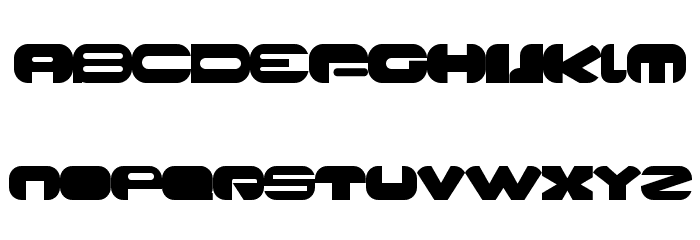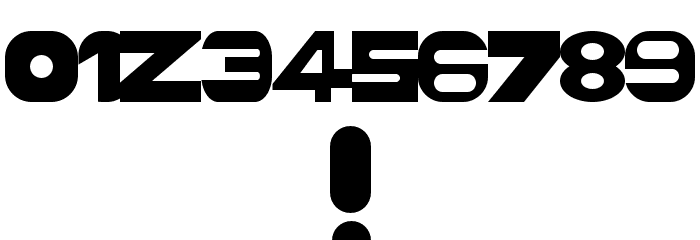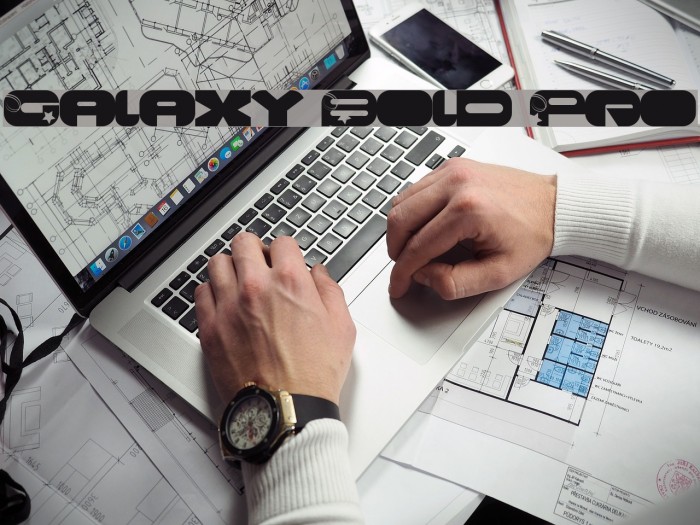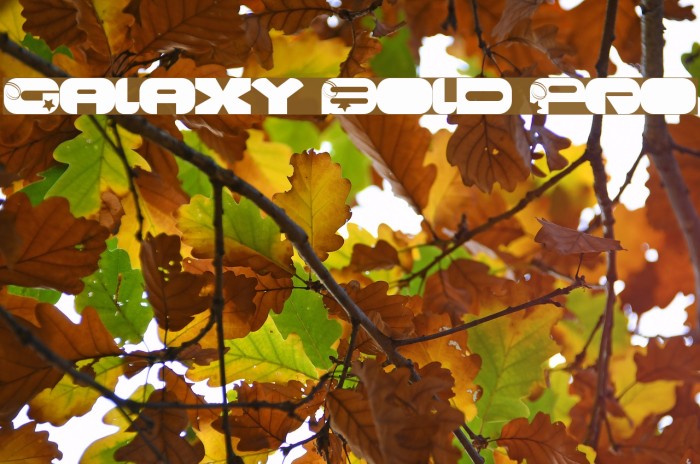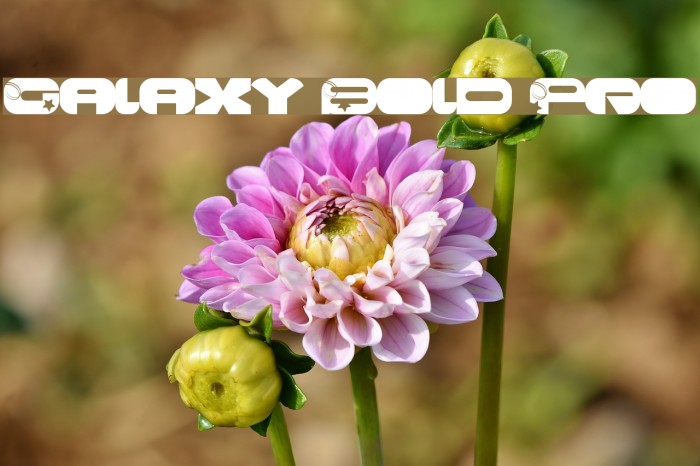
Galaxy Bold Pro Font
This font features a bold, futuristic design with a unique decorative style. The characters are adorned with star and circular motifs, giving it a cosmic and playful appearance. The letters are wide and rounded, with a strong presence that makes them stand out. The font's design is consistent across uppercase and lowercase letters, as well as numbers and special characters, maintaining its distinct style throughout. Its boldness and decorative elements make it ideal for eye-catching designs.
A bold, futuristic font with star and circular motifs, perfect for decorative use.
- Proposed Projects: Ideal for sci-fi themed posters, video game titles, event flyers, and branding that requires a futuristic and playful touch.
- Width: Expanded
- Overall Style: Futuristic, Decorative